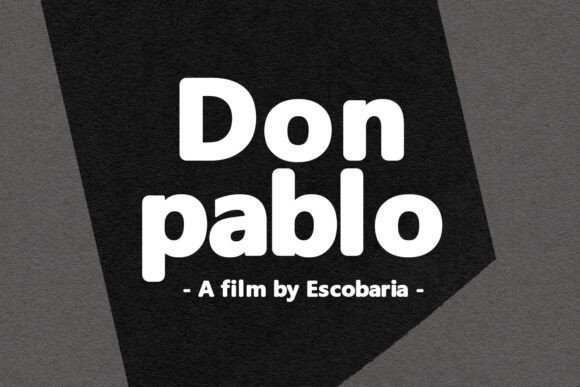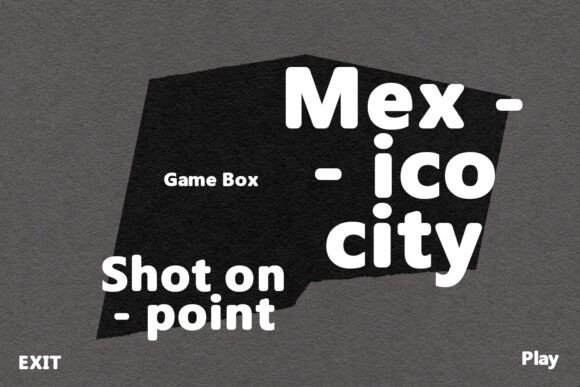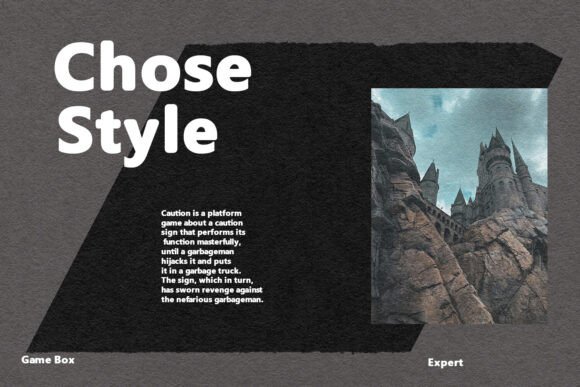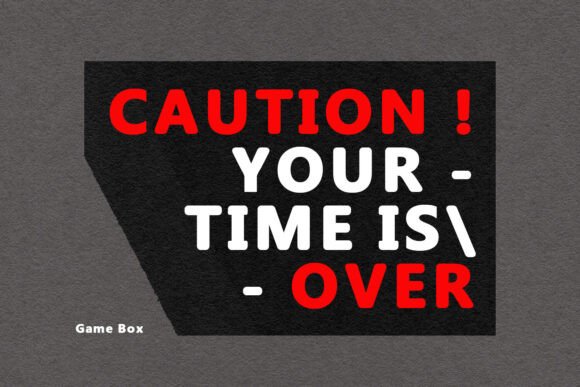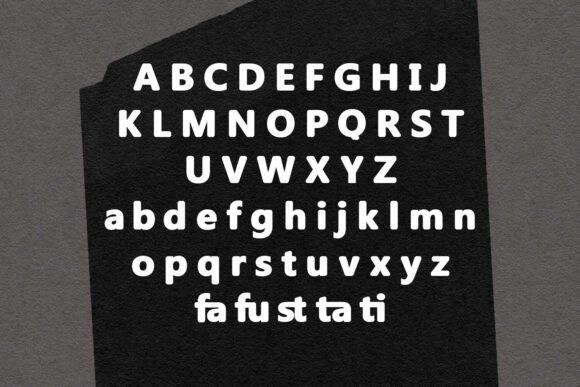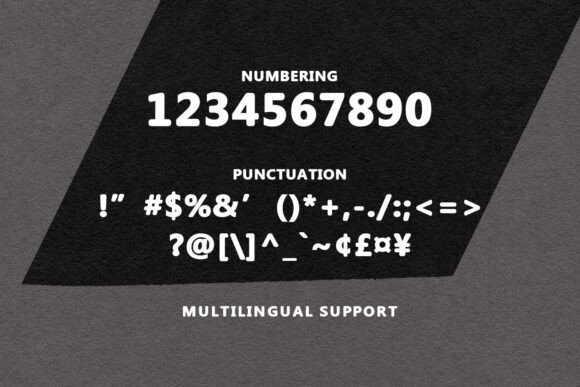
Introduction to Jecylin Font
Have you ever found yourself stuck in a creative rut, staring at a blank page, and desperately searching for the perfect font to breathe life into your project? That’s exactly where I was when I discovered the Jecylin Font – a game-changing addition to any designer’s toolkit.
As a design enthusiast, I can confidently say that the Jecylin Font is a hidden gem that deserves to be in every designer’s arsenal. Its modern, playful style makes it perfect for creating bold headlines, eye-catching logos, and engaging designs that capture the audience’s attention. Whether you’re working on a high-profile branding project or a personal creative endeavor, the Jecylin Font is an invaluable resource that will elevate your work to the next level.
Key Features of Jecylin Font
- High-quality, professional font design ideal for various creative projects.
- Designed with a clean and modern aesthetic, perfect for branding and logo design.
- Includes multiple font styles, including regular, bold, and italic, for added versatility.
- A valuable design resource for creatives working on a variety of projects, from logos to graphics and more.
Honest Review: Jecylin Font
I recently stumbled upon the Jecylin Font, and I must say it’s a great addition to any designer’s toolkit. This high-quality font is perfect for creative projects that require a unique touch.
- ✨ Wide range of uses: From headings to body text, Jecylin Font is versatile and can be used in various design contexts.
- ✨ High-quality design: The font’s unique style and intricate details make it a great choice for designers who want to add some sophistication to their work.
- ⚠️ Limited font sizes: While Jecylin Font is great for headings and body text, it may not be the best choice for larger font sizes.
- ⚠️ Transparent background: The font’s design can sometimes make it difficult to read on a transparent background.
Overall, I’m impressed with Jecylin Font. It’s a great design resource that can add a unique touch to any creative project. While it has some limitations, I think it’s well worth using in your designs.